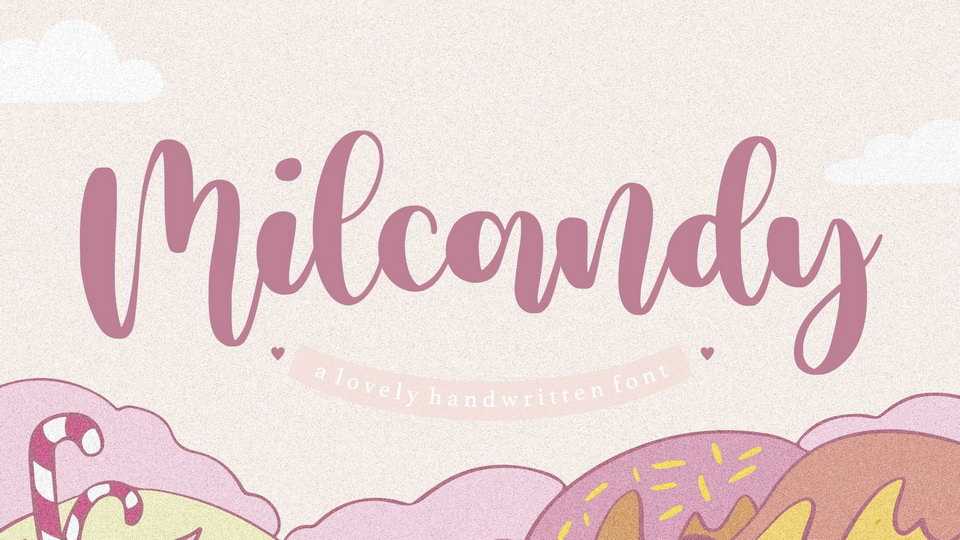
Download Milcandy font, a lovely handwritten typeface with playful look. Milcandy is perfect for product packaging, branding project, magazine, social media, wedding, or just used to express words above the background.
Designer: Balpirick Studio